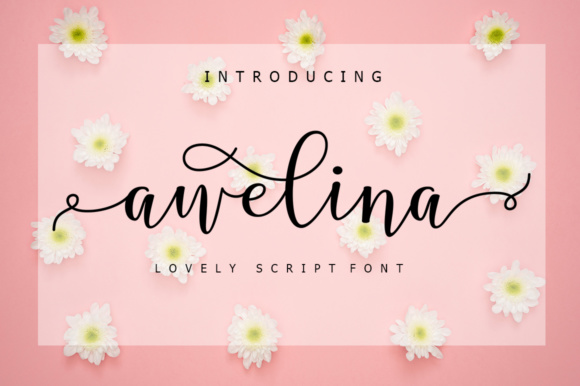
If you want to emanate opulence and style, the Awelina Script Font needs to be in your collection! Supotype created this gorgeous script font with a dynamic and casual flair, featuring a subtly dancing baseline that adds a touch of whimsy to your designs. Embrace the ease of use of this font and let it work its magic in any branding, logo, greeting card, or quote you create. With this font, your creations will exude an effortlessly chic aesthetic that will undoubtedly leave a lasting impression!
Awelina's malleable style shines, whether you're seeking to evoke a sense of sophistication or a carefree spirit. It's the perfect choice for a wide range of creative endeavors, from personalizing wedding invitations and crafting heartwarming love letters to designing captivating social media graphics and eye-catching logos. Awelina's versatility knows no bounds, making it a must-have for every font enthusiast!